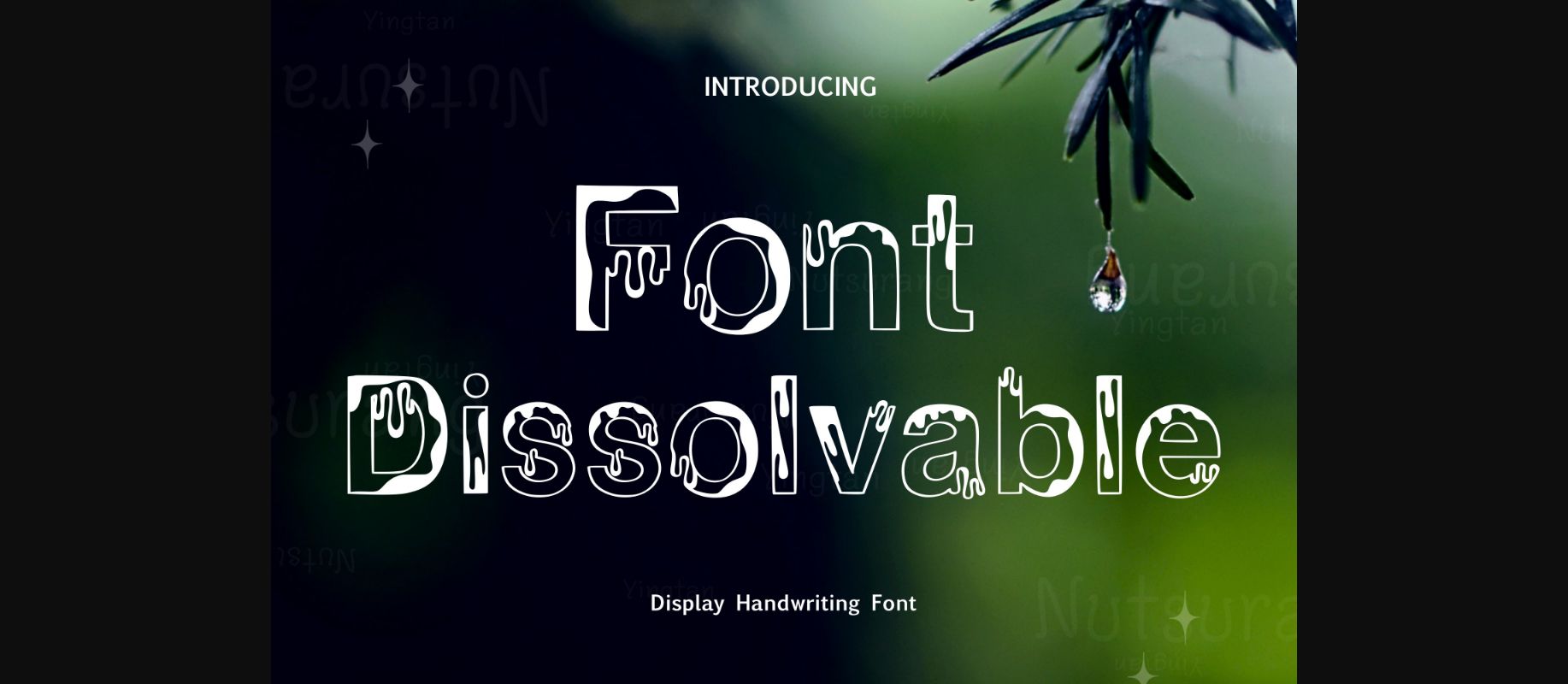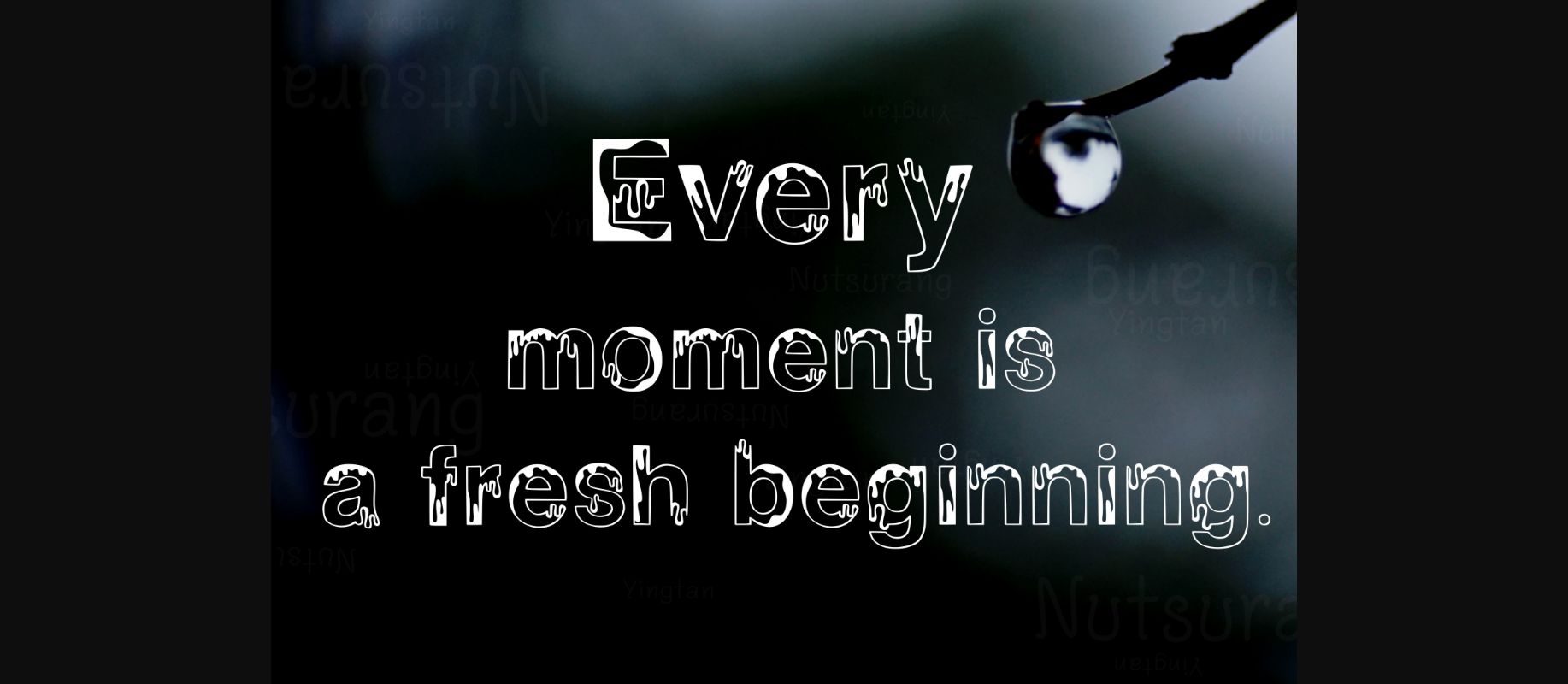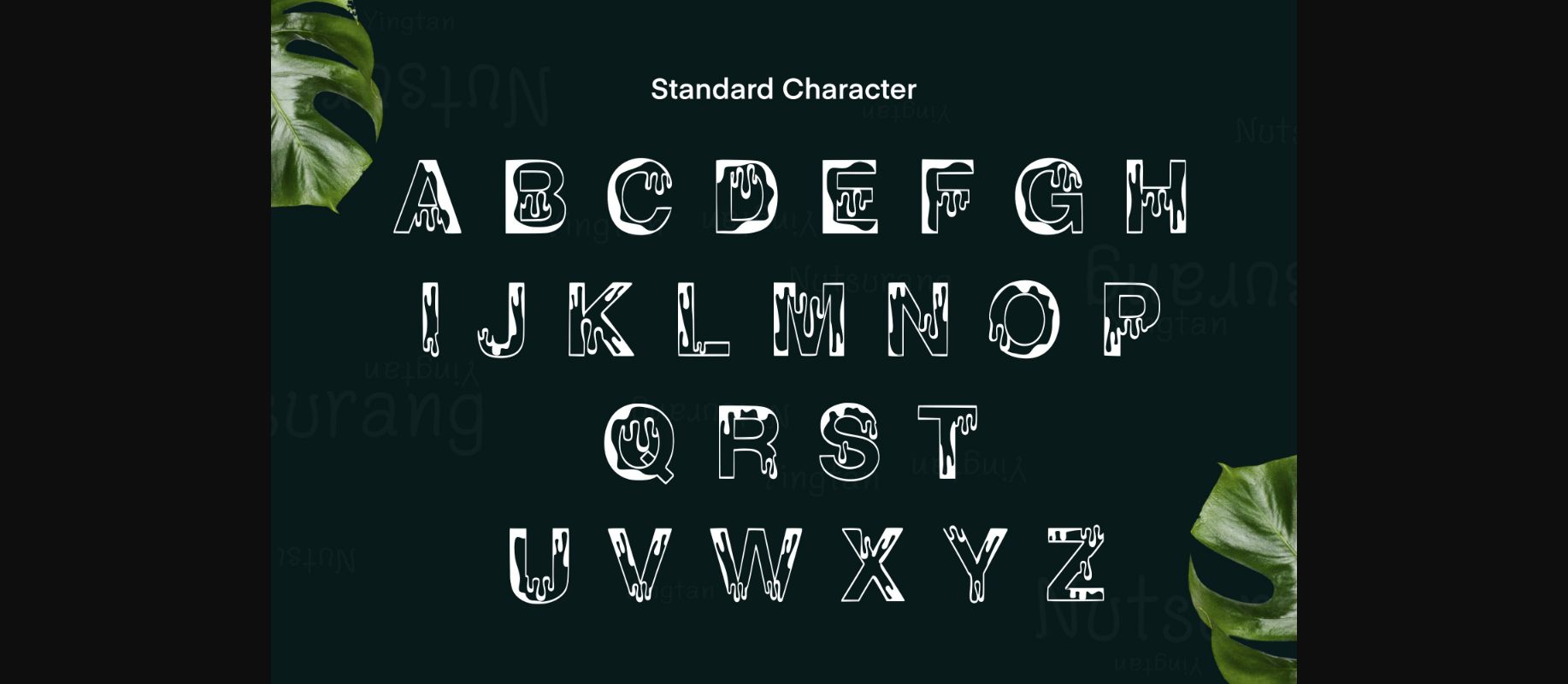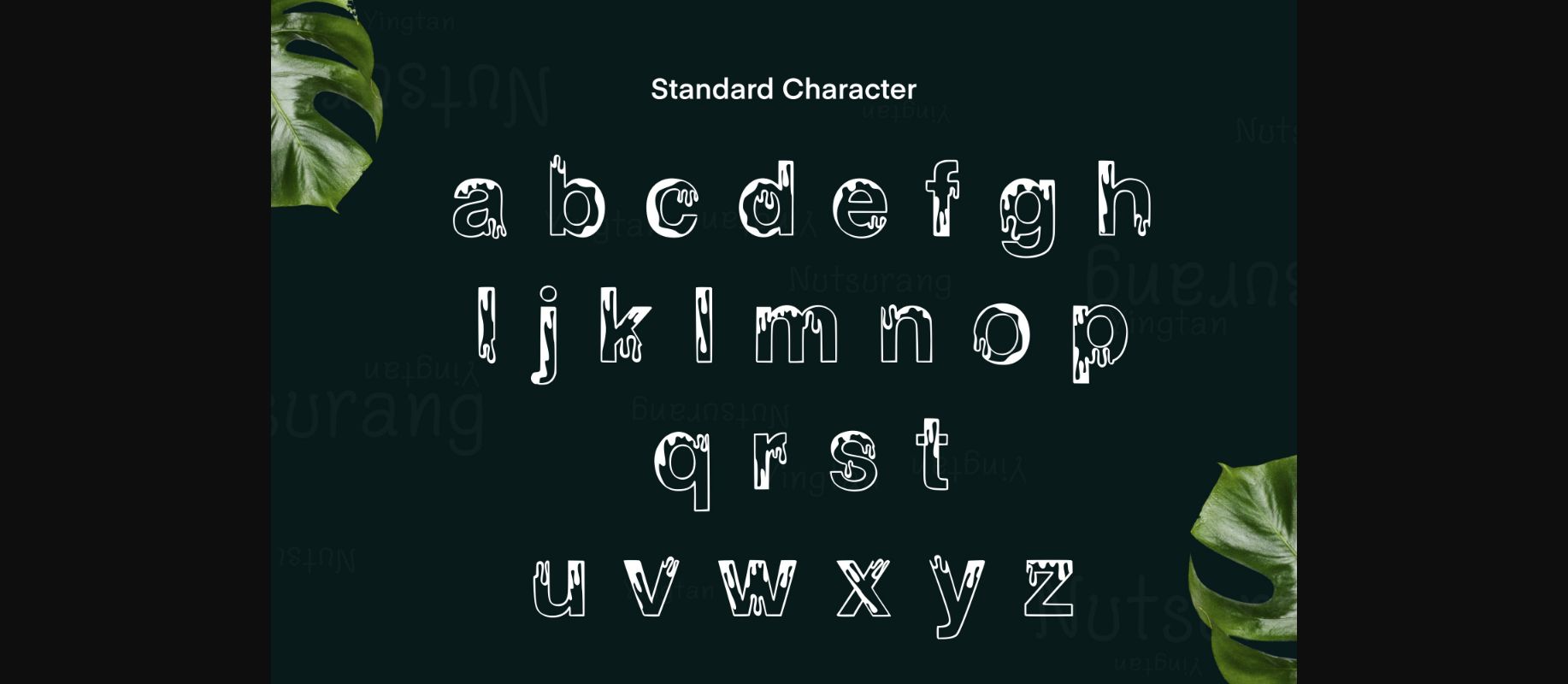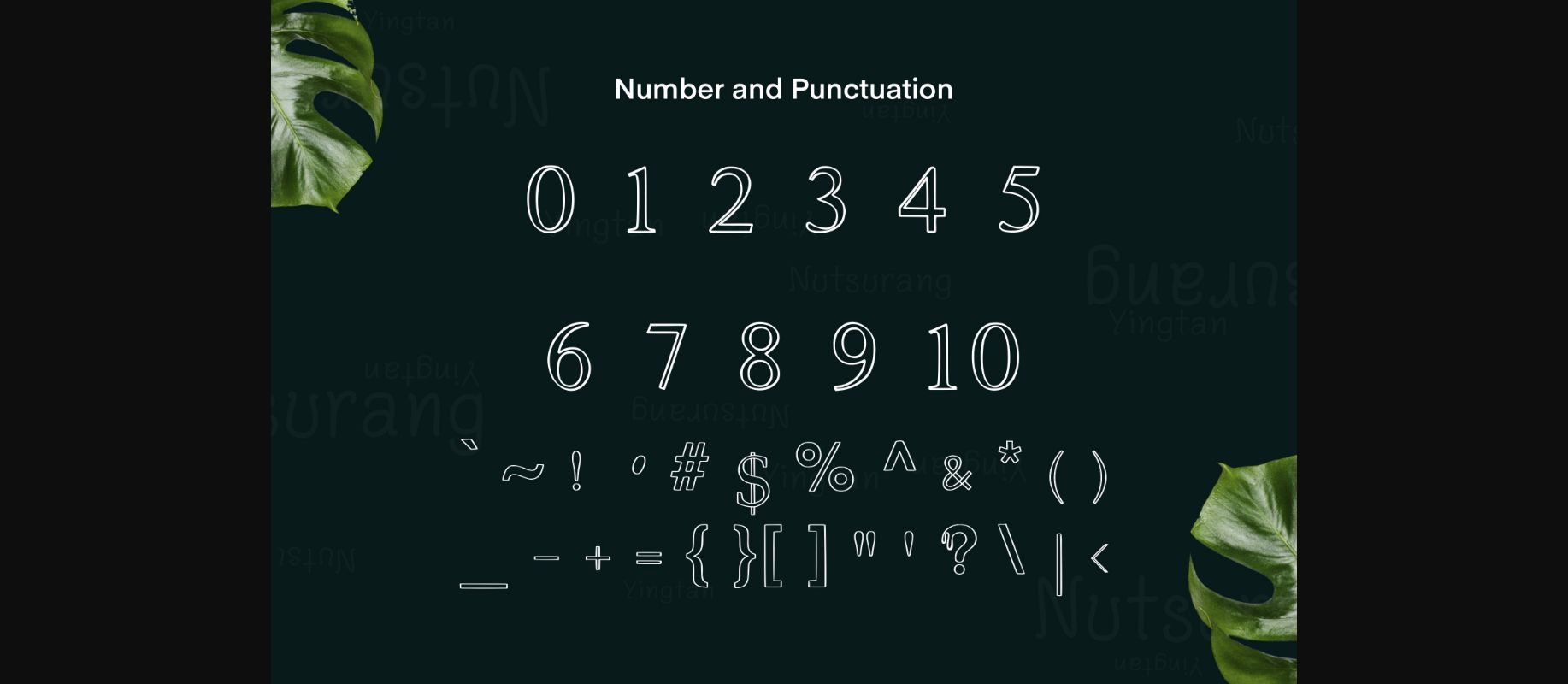
About Dissolvable Font
Dissolvable is a bold, cool decorative font featuring the perfect amount of trendiness. Whether you’re using it for crafting, digital designing, presentations or greeting cards making, it’s perfect!